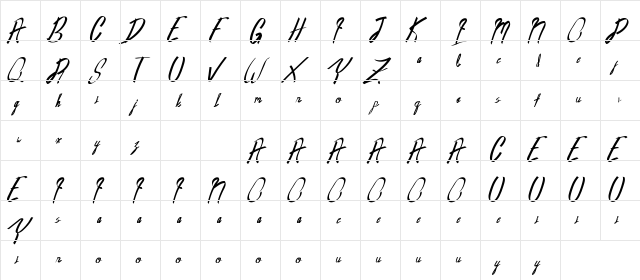
Oldwin Demo Script Regular
Design Context for Oldwin Demo Script Typeface
Oldwin Demo Script brings a calligraphic fluidity to the page — its connecting strokes and expressive curves give it an unmistakably human quality.